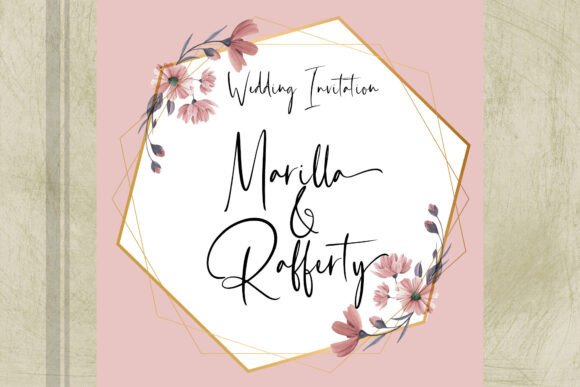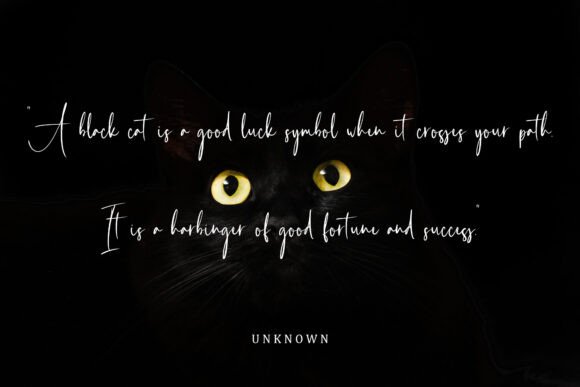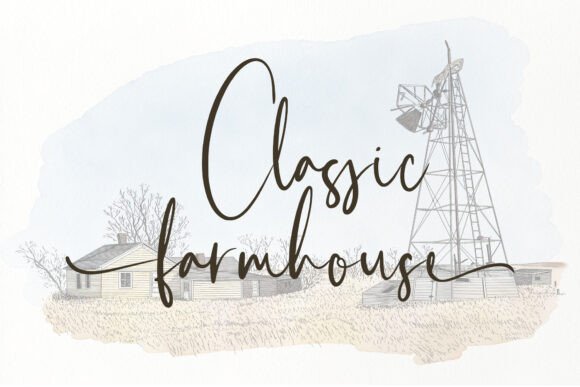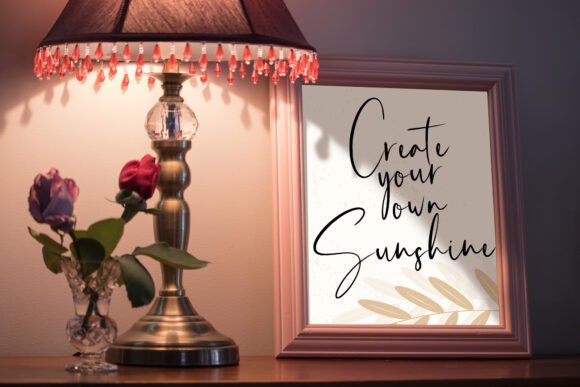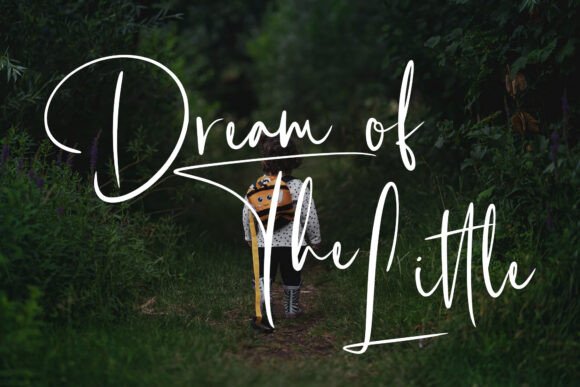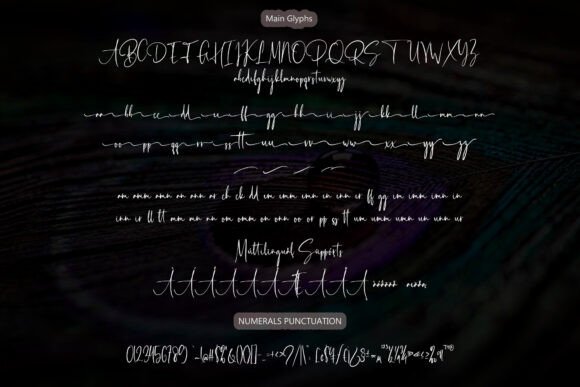
The Perfect Blend of Luxury and Elegance: Black Amour Font
Have you ever stumbled upon a font that instantly sparks your creativity and sets your imagination ablaze? For designers, this moment is a treasure to behold, and I’m about to share with you a font that embodies the perfect blend of luxury and elegance: the Black Amour Font. This stunning script font is a masterclass in sophistication, with flowing curves that exude romance and charm.
Whether you’re designing invitations, branding, or greeting cards, the Black Amour Font is the perfect choice to make a bold statement. Its versatility and elegance make it a valuable asset for any designer’s toolkit, allowing you to add a touch of luxury to even the most mundane projects.
- Font Family: Black Amour Font is a luxurious, elegant script font designed for high-end branding and advertising.
- Character Count: The font family consists of 250 characters, including uppercase and lowercase letters, numbers, and punctuation marks.
- Unique Characteristics: Black Amour Font features a unique blend of elegance and sophistication, making it perfect for creating luxurious and high-end designs.
Designer Review: Black Amour Font
Overall, I’d say the Black Amour Font is a solid, elegant choice for any project that requires a touch of sophistication. Here’s what I like about it: ✨
- Exquisite, cursive script that adds a touch of romance to any text
- Highly legible, even at smaller font sizes
- A wide range of language support, making it suitable for multilingual projects
- Limited bold and italic variations, which may limit its versatility
- May not be the best choice for projects requiring a lot of emphasis or bold headings
- Some users may find the font’s connection to the French term ‘amour’ (meaning love) to be cheesy or clichéd
Overall, I’d recommend the Black Amour Font for projects that require a touch of elegance and sophistication, such as wedding invitations, romance novels, or luxury branding. However, it may not be the best choice for more straightforward or modern projects.
Tips for Getting the Most Out of Black Amour Font
For the best results, use Black Amour Font in combination with bold or italic text to create visual contrast. Experiment with different font sizes and colors to find the perfect balance for your design.
Black Amour Font is ideal for creating elegant and sophisticated designs, such as:
- Luxury branding and packaging
- Formal event invitations and announcements